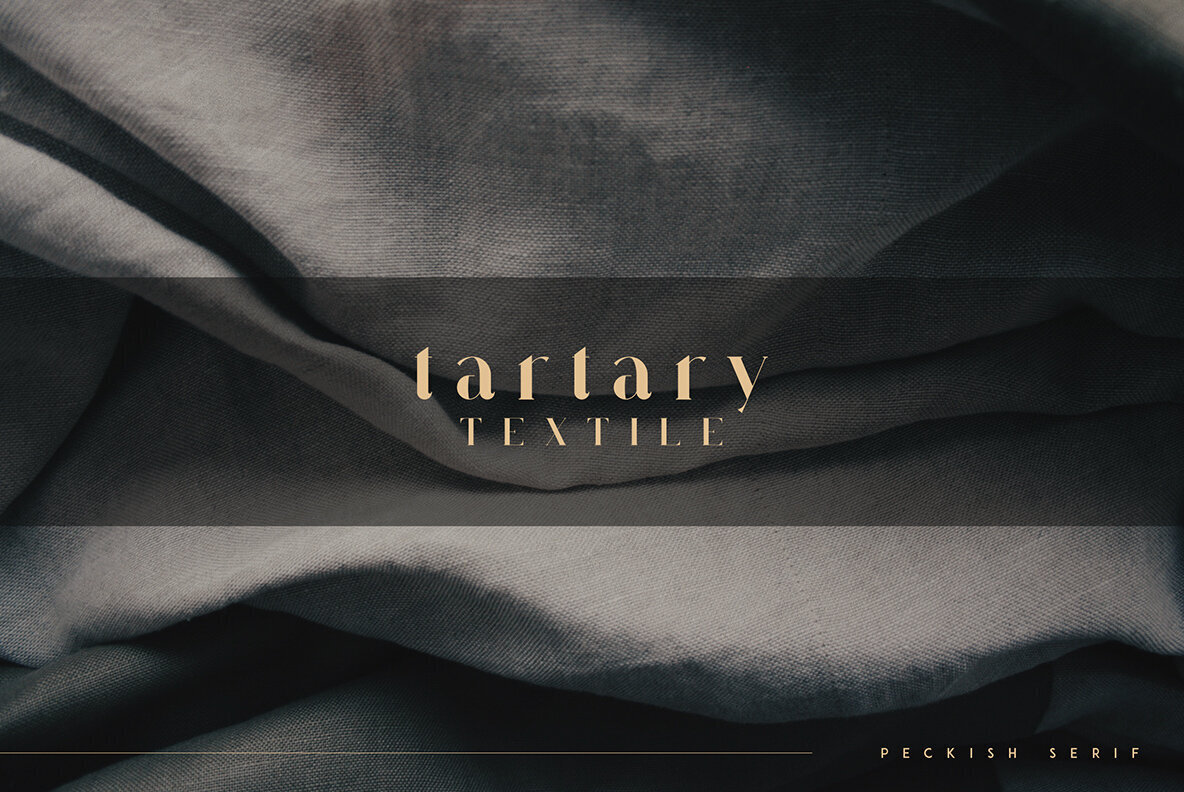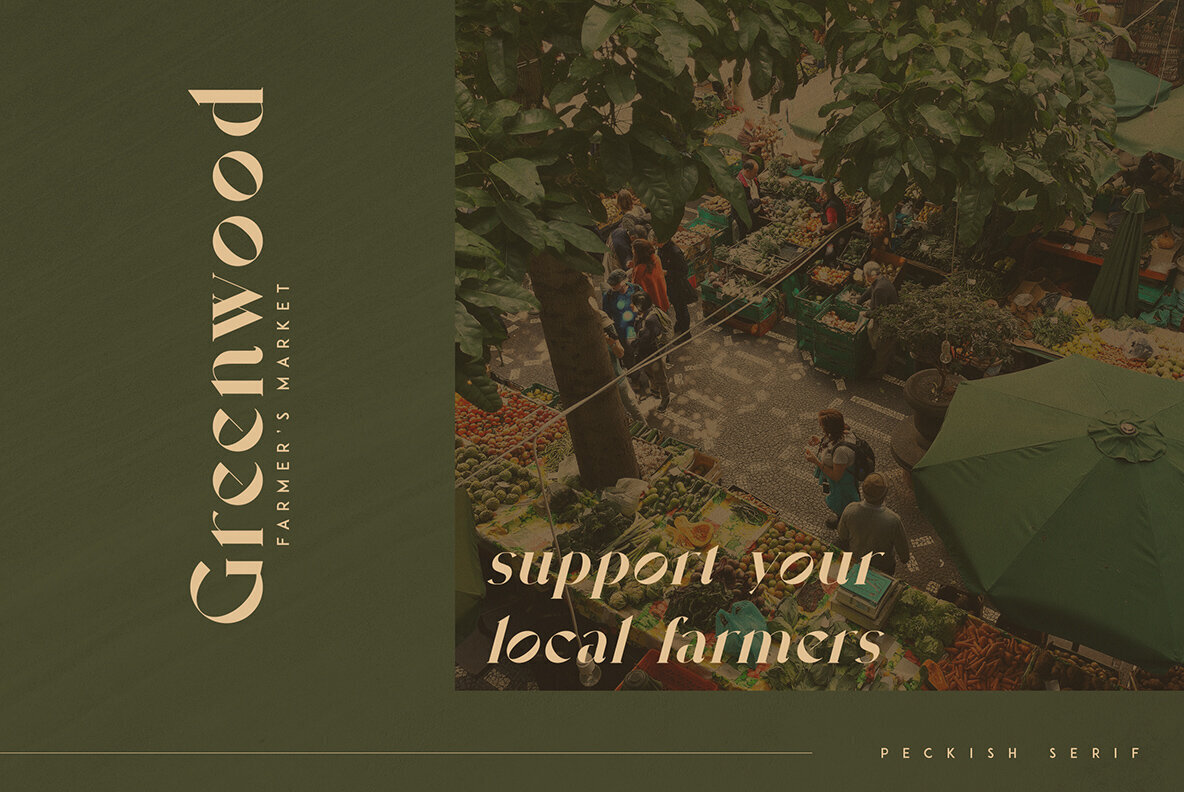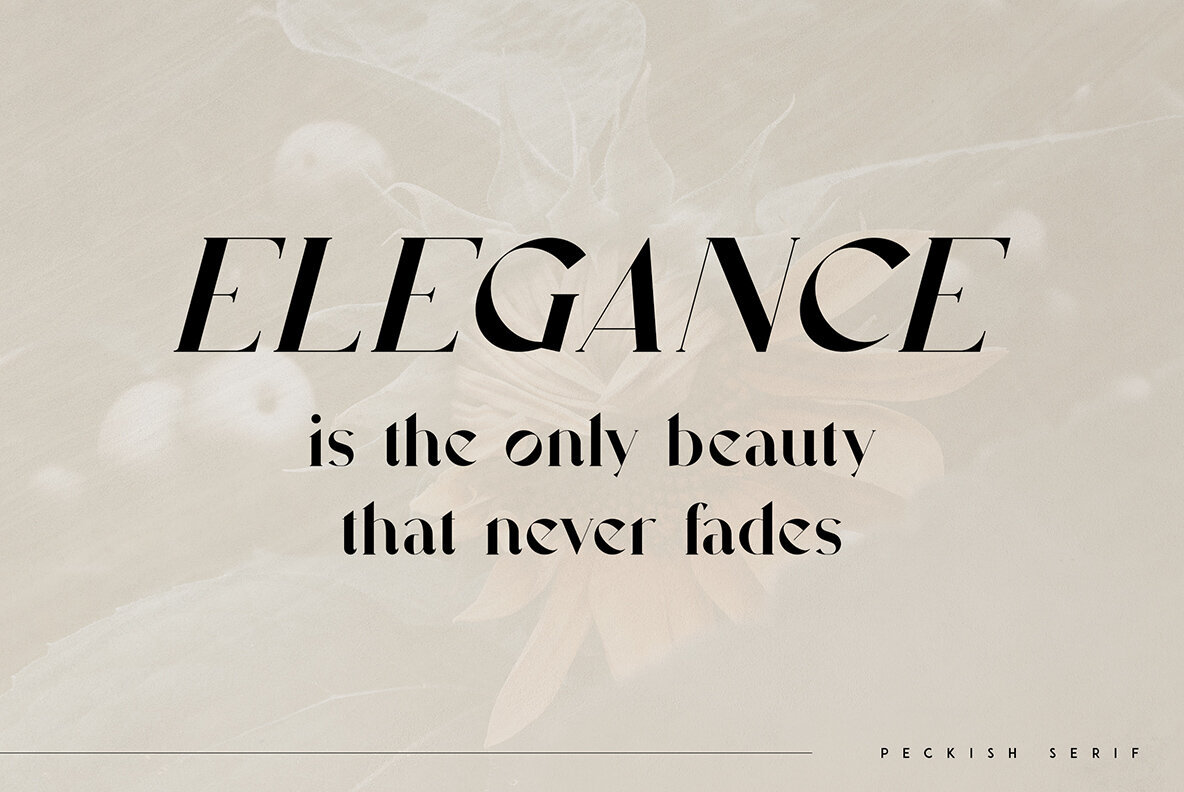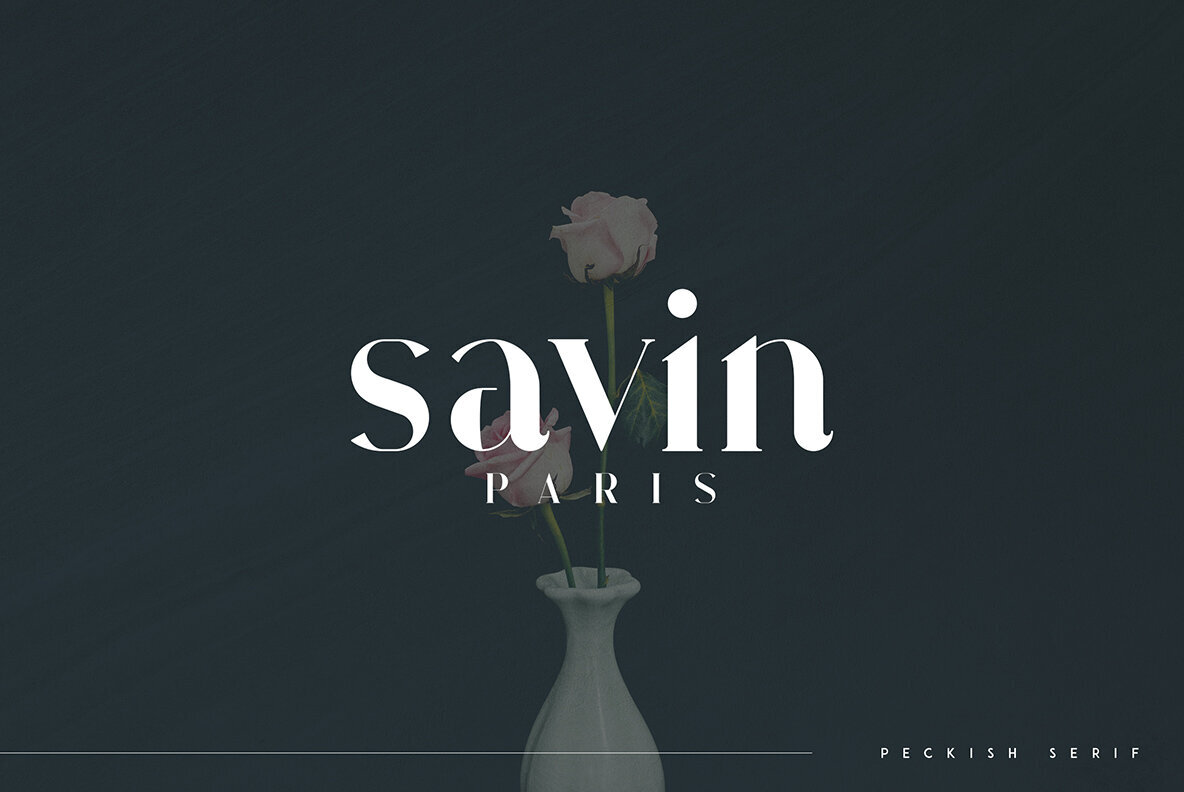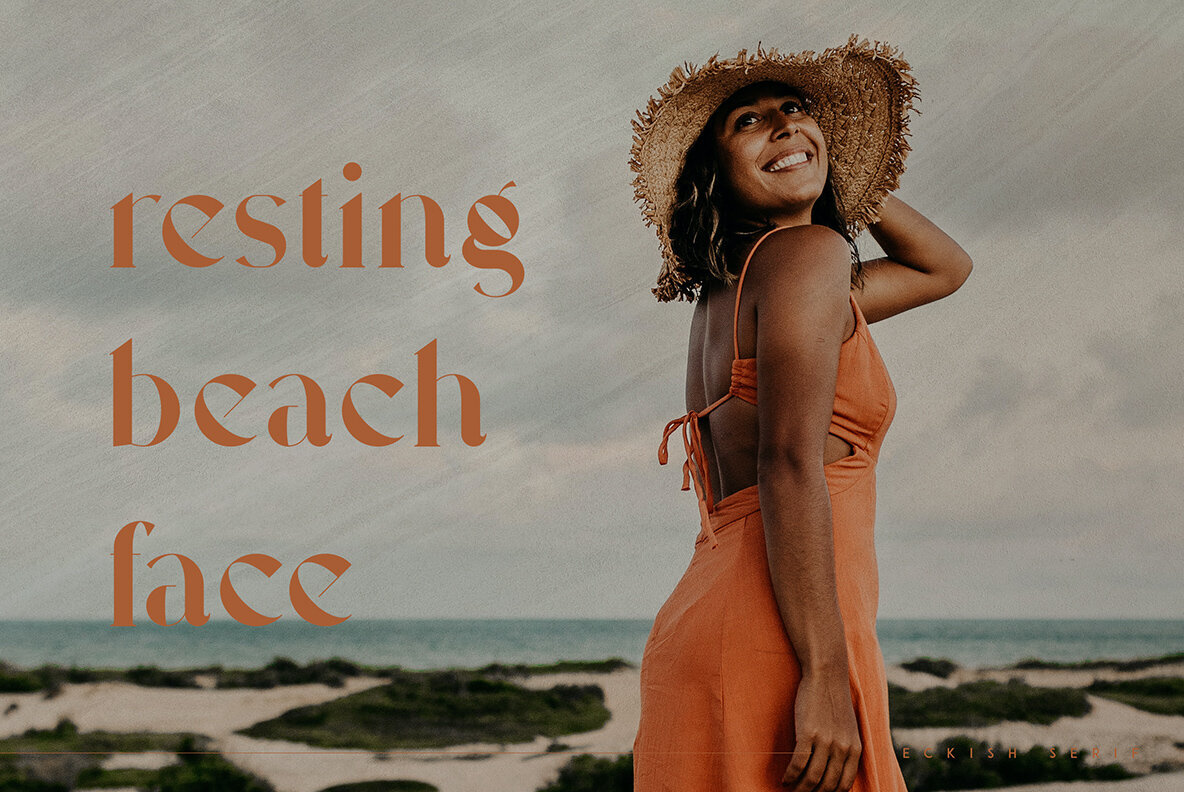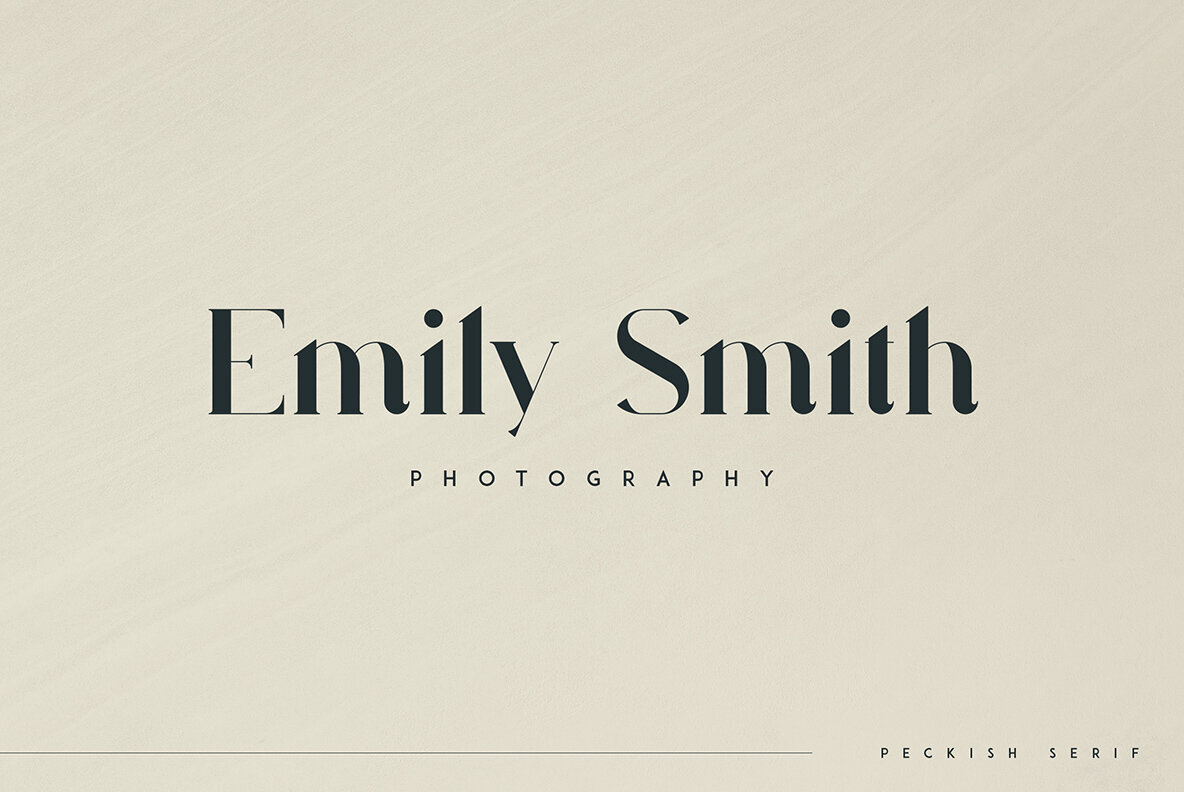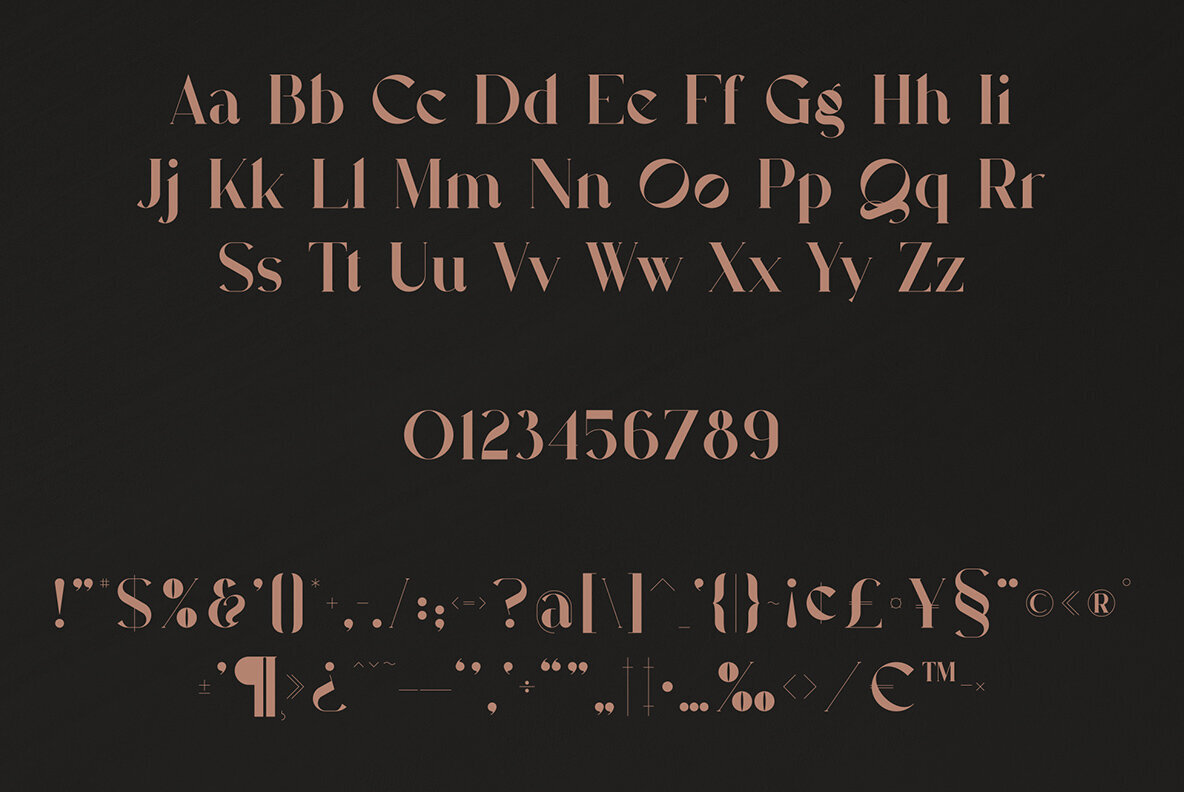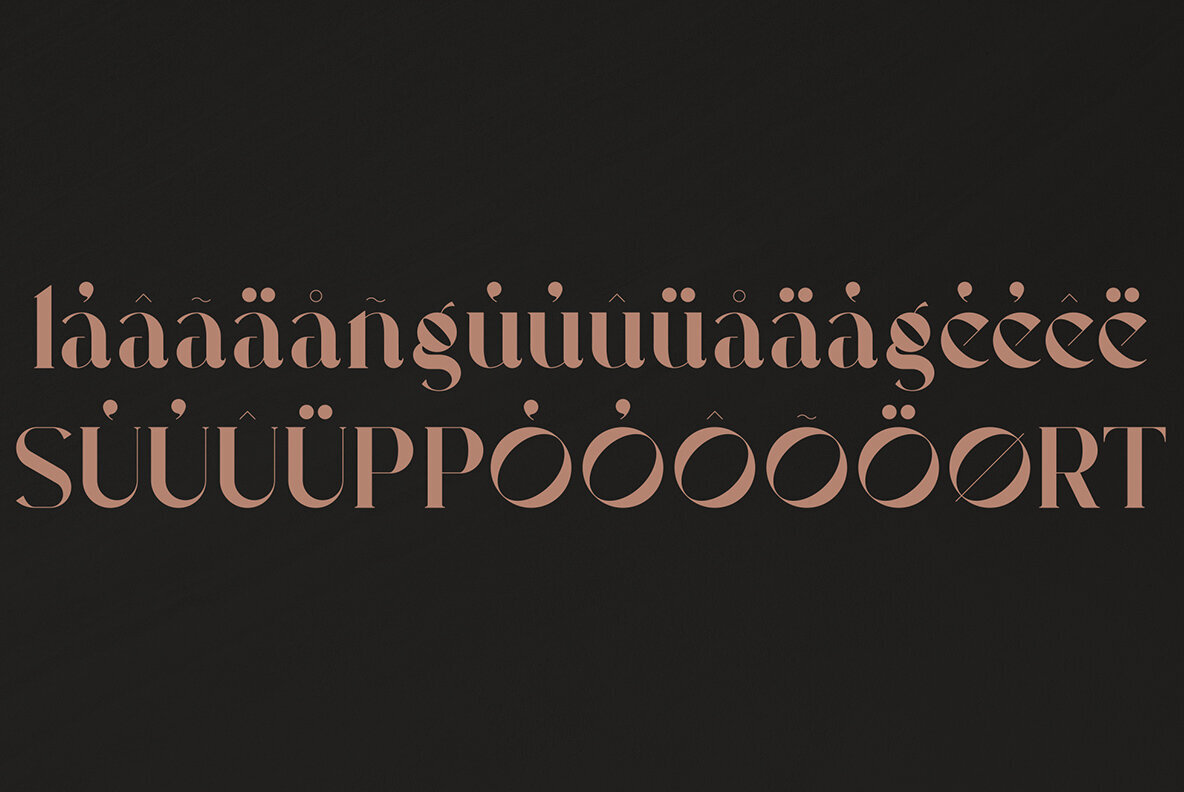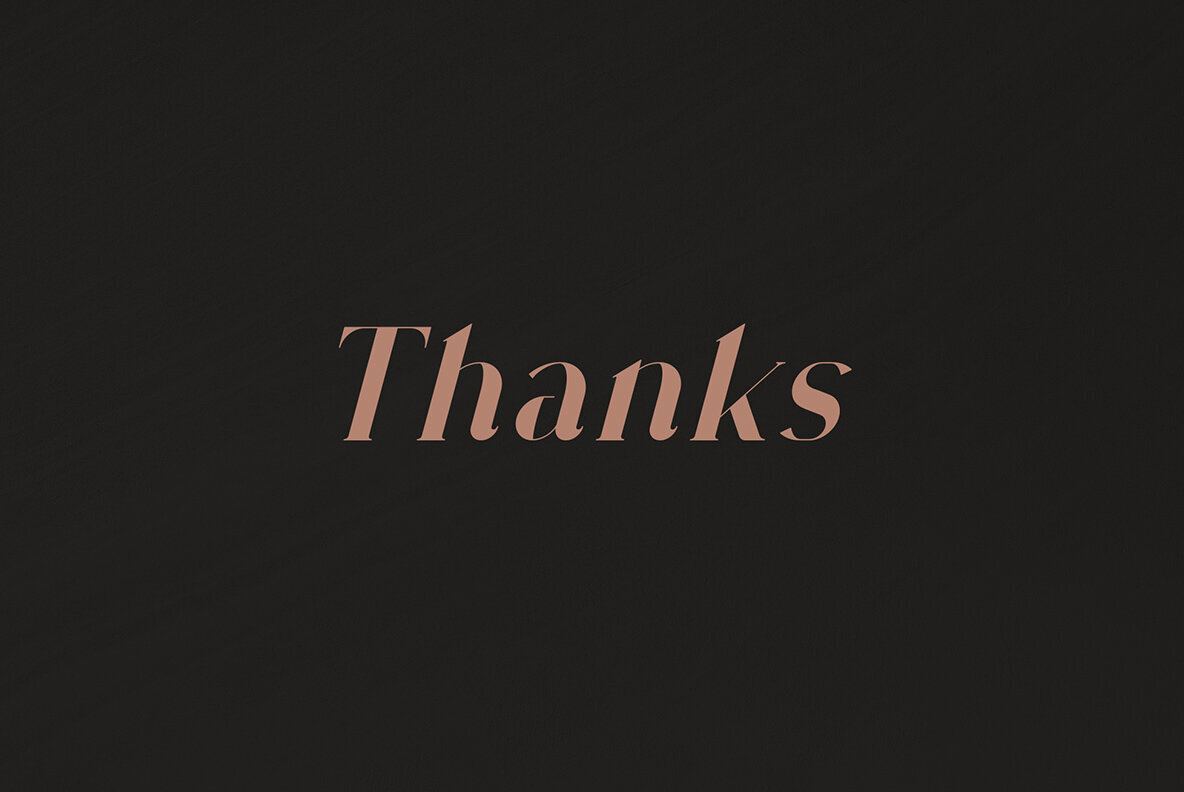
Peckish Font
Peckish
Peckish Italic
Peckish by VP Creative Shop is an elegant and organic serif typeface that seamlessly combines boldness with a touch of versatility. Designed to excel in both large and small sizes, this font stands out in any context, from branding initiatives to product packaging. Its adaptability makes it ideal for magazine headers and as a stylish overlay for background images. Peckish Typeface: Bold Serif with Multilingual Support